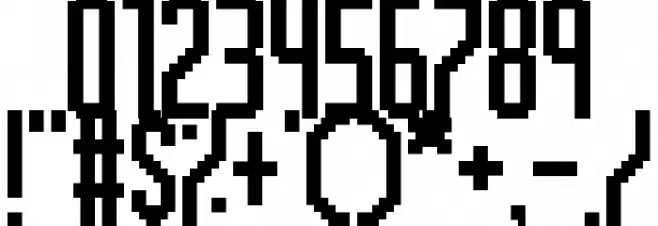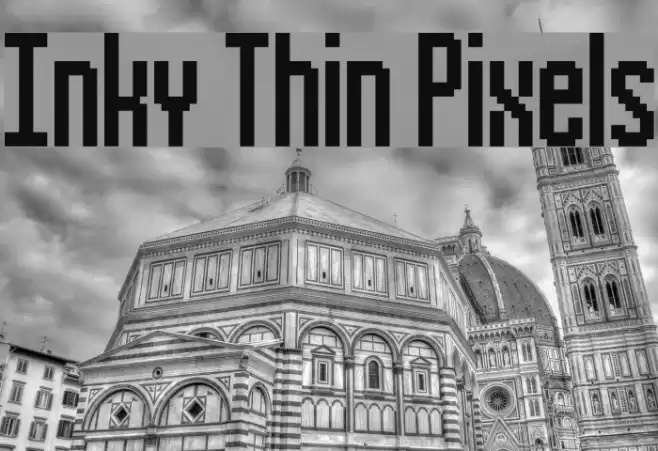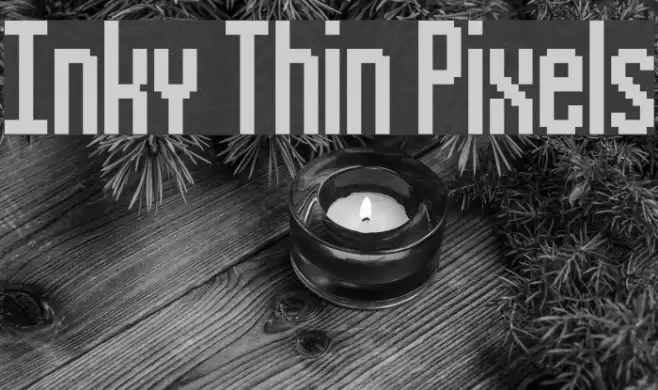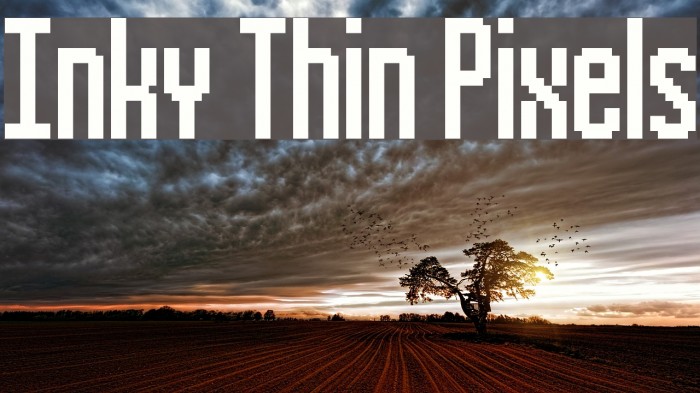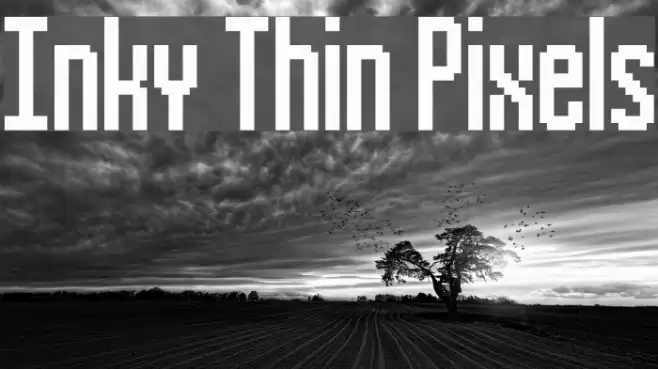
Inky Thin Pixels Font
Inky Thin Pixels Description
This font features a pixelated, blocky design reminiscent of early digital displays and retro video games. Each character is constructed with a uniform grid-like structure, giving it a distinctly digital and geometric appearance. The uppercase and lowercase letters maintain a consistent height and width, contributing to a cohesive and orderly look. The numerals and special characters follow the same pixelated style, ensuring uniformity across all glyphs. This font's simplicity and clarity make it highly legible, even at smaller sizes. Its nostalgic aesthetic is ideal for projects that aim to evoke a sense of retro digital culture or vintage computing.
A pixelated, blocky font with a retro digital aesthetic from Farsi fonts.
- Proposed Projects: Ideal for retro video games, digital art projects, tech-themed posters, and nostalgic branding.
- Overall Style: Retro, Digital
- Use Case: Headlines, Logos, Digital displays